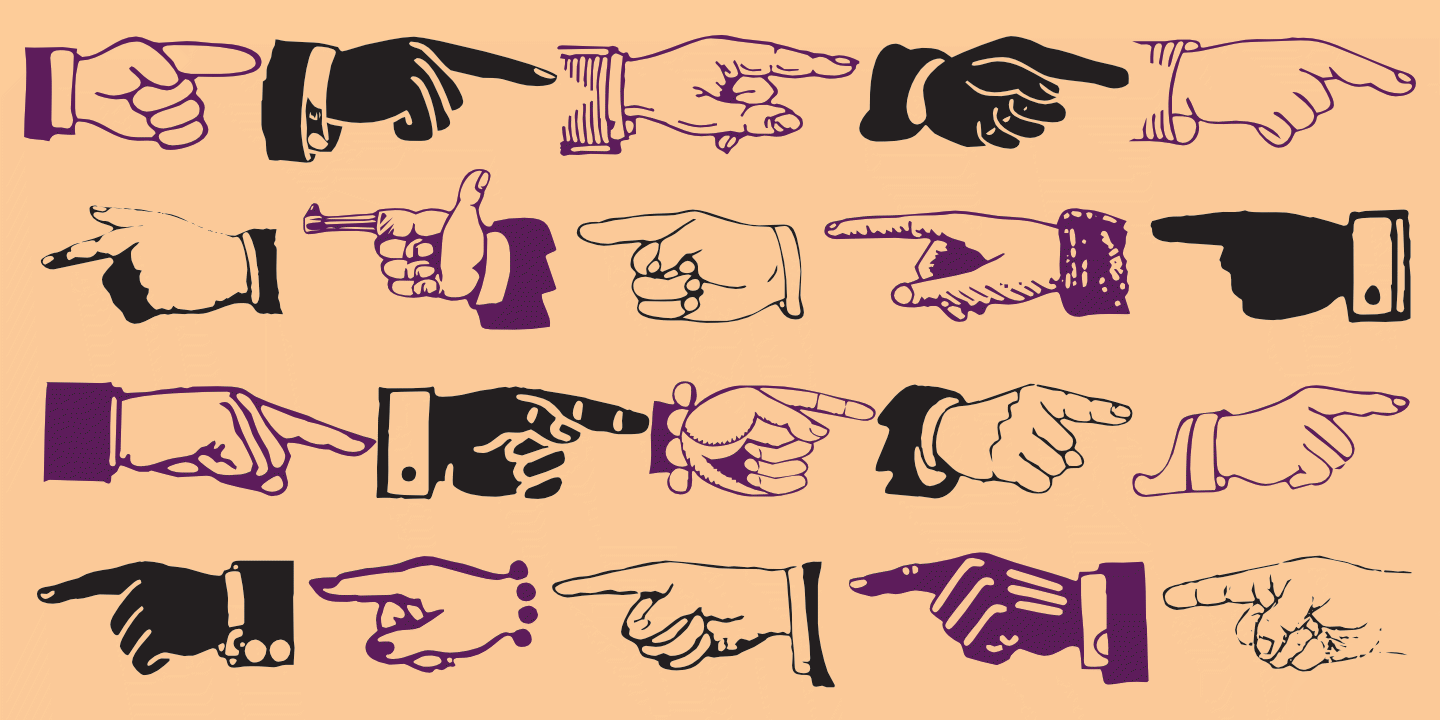
Handsome
Handsome™ is a collection of 36 antique style hands. For each hand, there are both right-facing and left-facing glyphs. Great for adding an accent here and there in your document. Click on the Glyph Chart link at right to view all glyphs in this font.